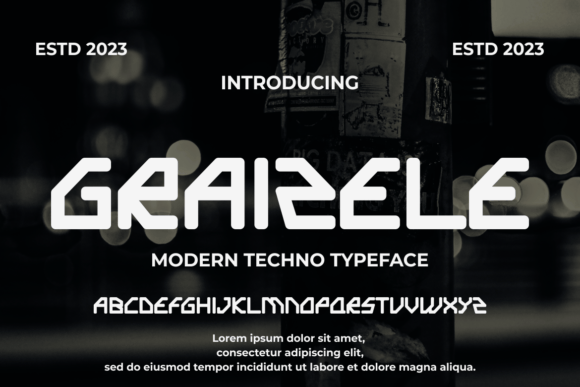
Introducing GRAIZEL FONT, the game-changing display font that takes professionalism to new heights. Its striking presence commands attention and elevates your branding projects to the next level.
Join the ranks of savvy designers who have discovered the power of GRAIZEL FONT. Unleash your creativity and craft exceptional logos, templates, esports designs, and countless other projects that exude professionalism and sophistication.
As a display font, GRAIZEL FONT possesses an innate ability to captivate and engage audiences. Its bold and authentic character shines through in every letterform, leaving an indelible mark on viewers' minds.
Experience the versatility of GRAIZEL FONT, effortlessly adapting to a diverse range of contexts. Whether you're designing for digital or print media, this font delivers remarkable results that resonate with your target audience.
Created by the renowned font designer maikofarazhatta, GRAIZEL FONT embodies the essence of modern design. Its clean lines and sharp angles evoke a sense of sophistication and timelessness, ensuring your projects stand the test of time.
Don't settle for ordinary fonts that blend into the background. Embrace the power of GRAIZEL FONT and unlock a world of creative possibilities. Let your ideas soar as you design with confidence, knowing that every word and character carries the weight of professionalism and distinction.